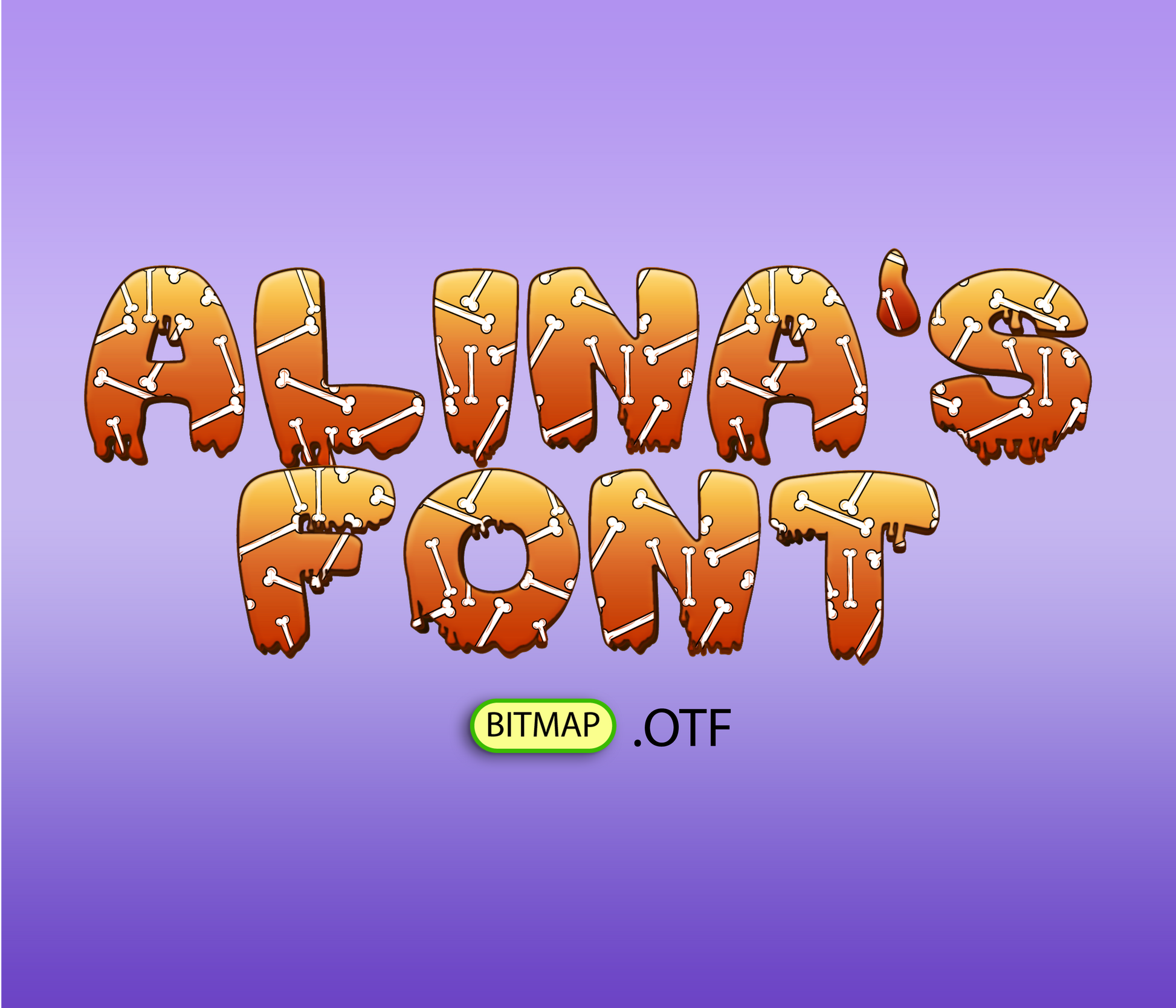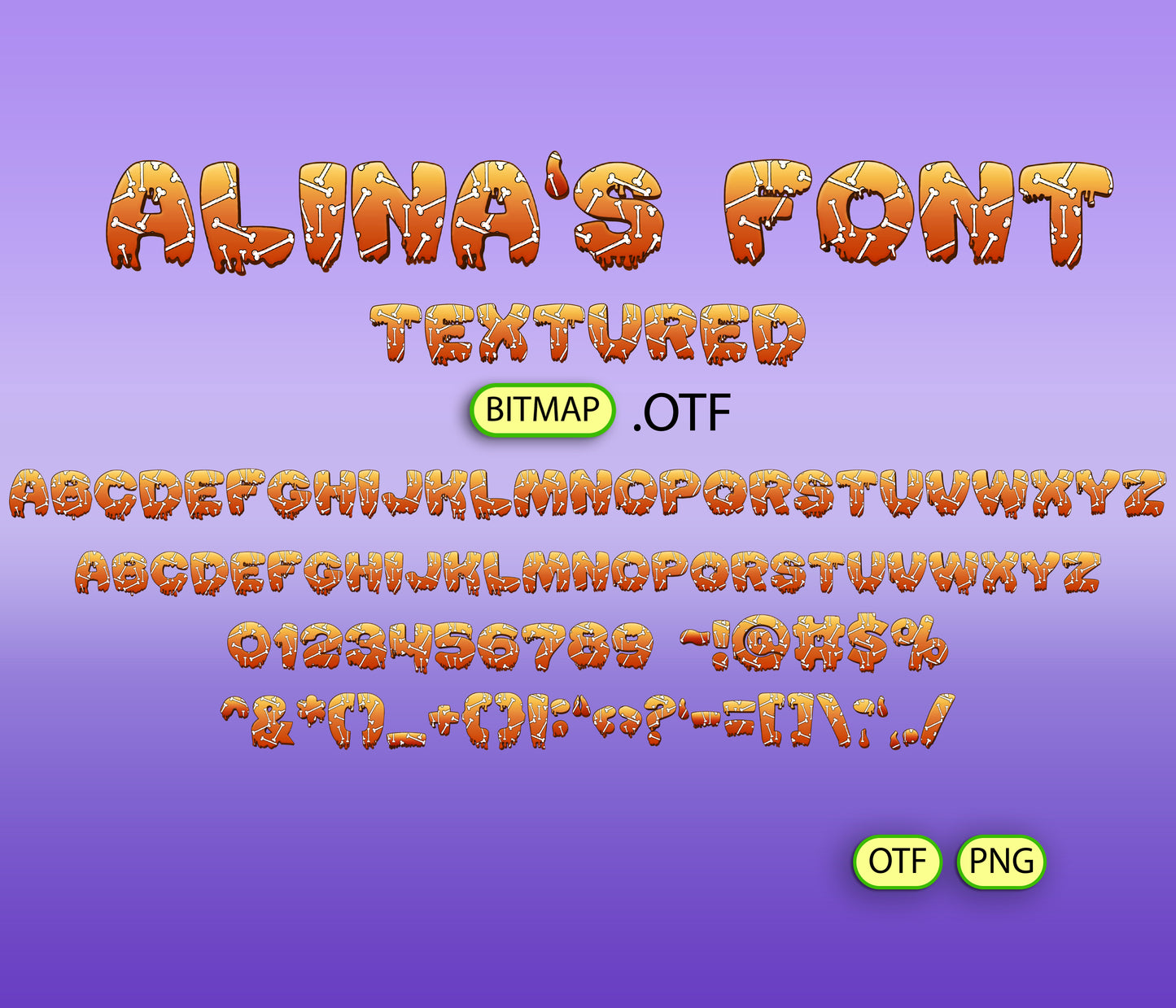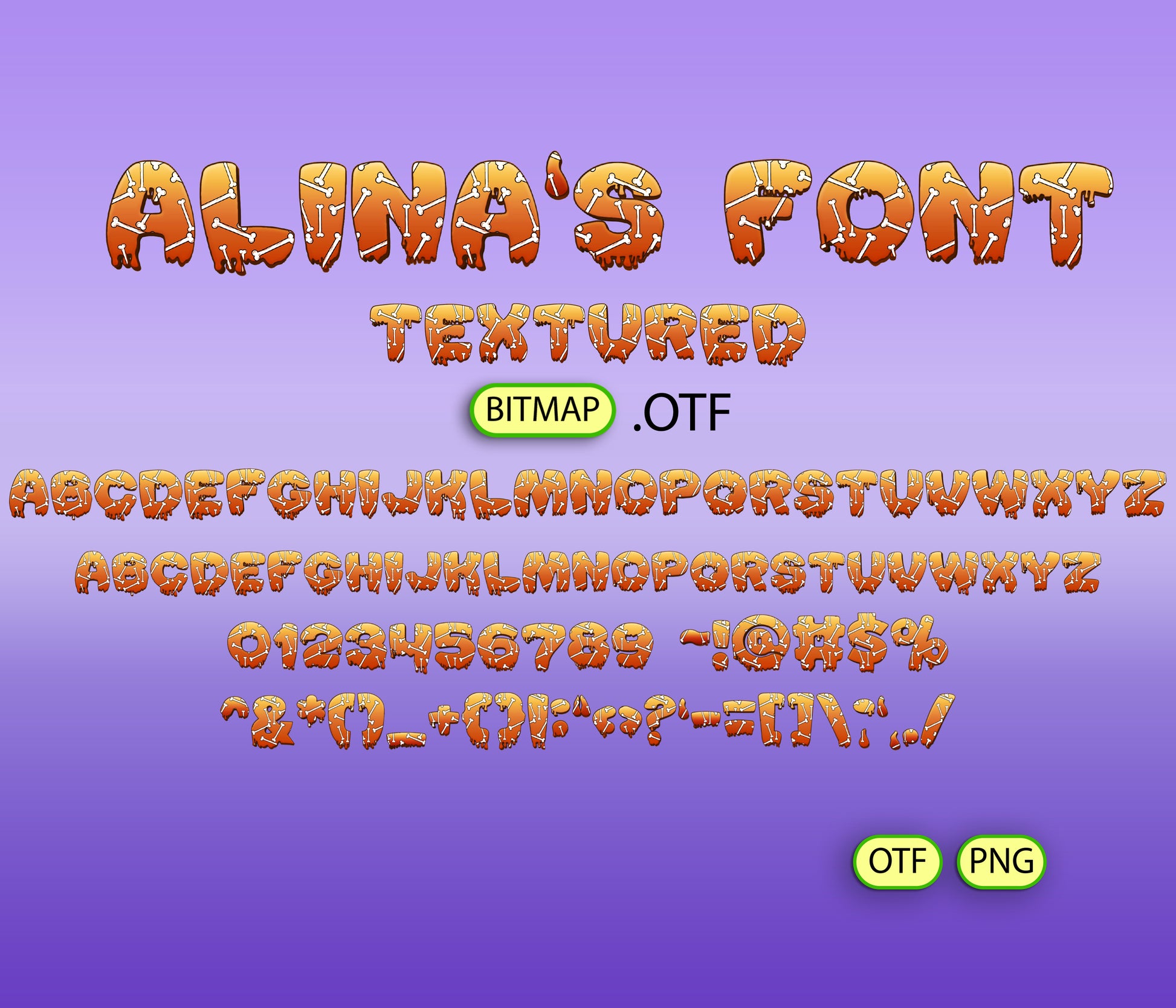
FREE Halloween Slime Bones Pattern Font
Halloween Slime Bones Font Textured Skeletal Ooze
Step into the macabre world of bone-chilling horror with our Halloween Slime Bones font, capturing the essence of skeletal decay and dripping terror. Perfect for graveyard events, haunted attraction designers, gothic content creators, and creative professionals, this font brings the ghoulish, bone-rattling spirit of undead nightmares to your projects. Create bone-chilling invitations, skeleton-themed merchandise, or digital content with the eerie, calcium-rich energy of ultimate graveyard frights.
Our Halloween Slime Bones font features skeletal, jagged shapes and bold characters reflecting the ossified yet terrifying aesthetic of graveyard horror scenarios. Ideal for:
- Spooky Events: Create attention-grabbing invites, posters, and banners for Halloween parties, cemetery experiences, and bone-themed gatherings
- Gothic Design: Perfect for book covers, movie promotions, and undead-themed party accessories that capture skeletal terror
- Digital Media: Enhance websites, blogs, and social media with dramatic headers and graphics that express death and haunting atmosphere
- Entertainment Content: Add authentic character to Halloween materials, costume designs, and promotional materials for graveyard events
- Personal Projects: Bring skeletal edge to scrapbooking, DIY crafts, and home decor inspired by the aesthetics of bone-chilling frights